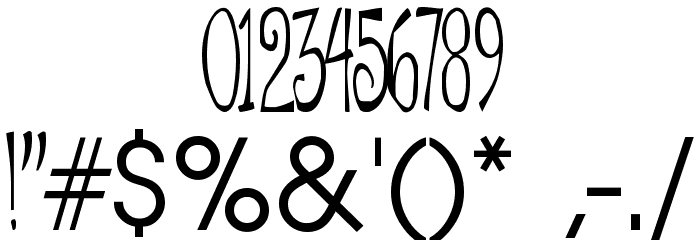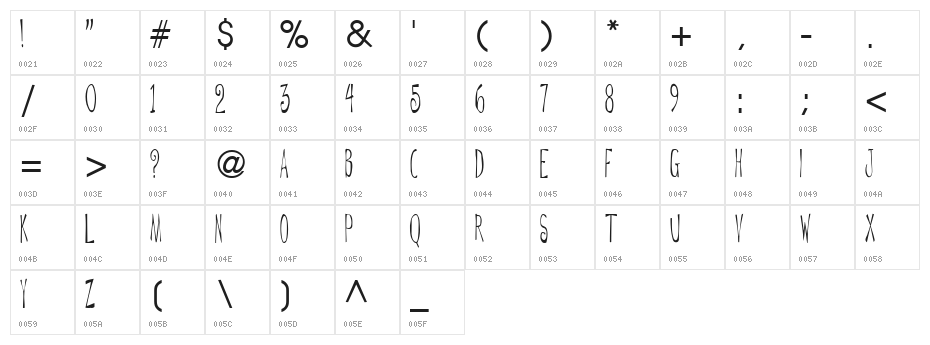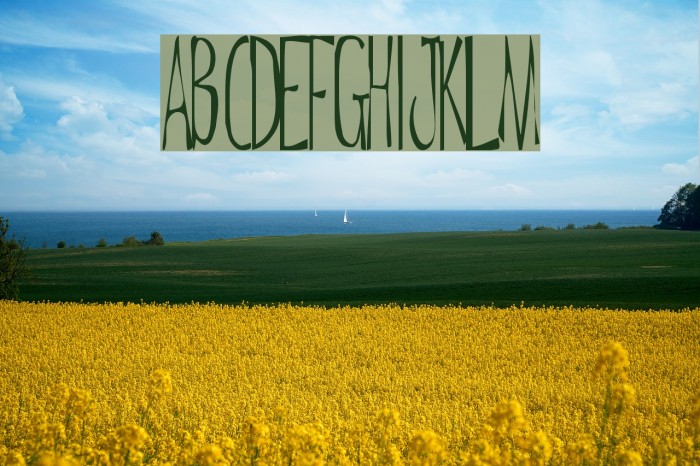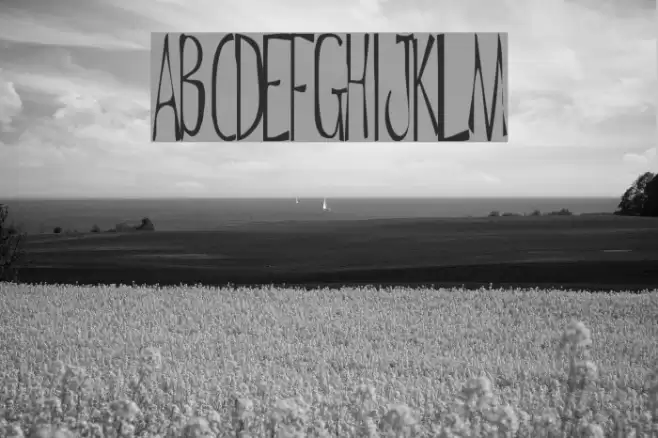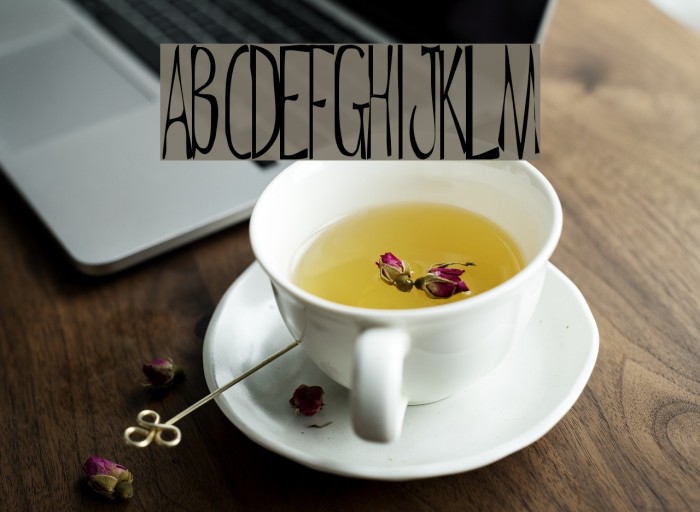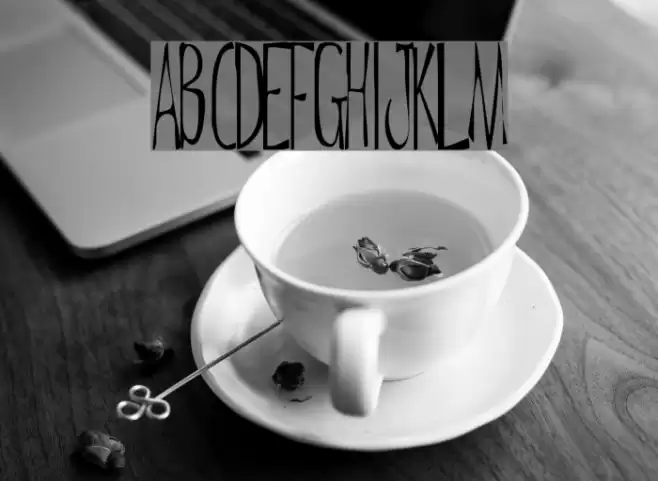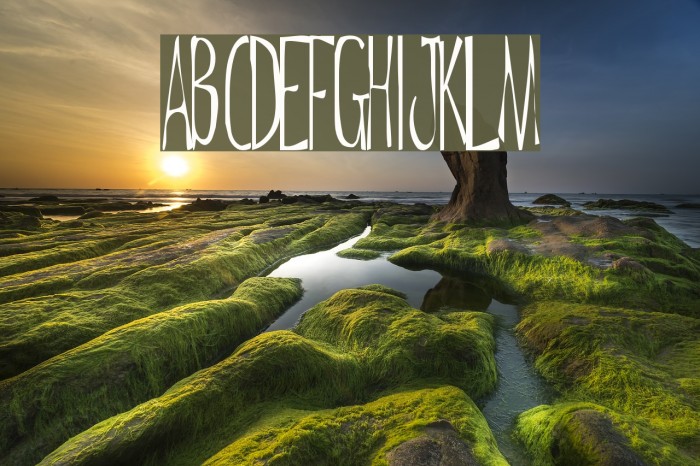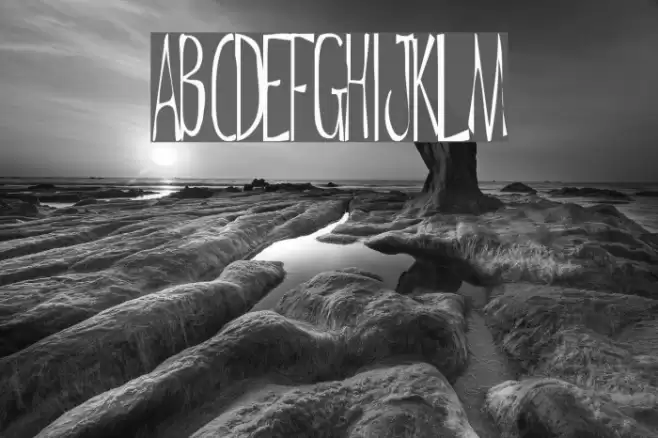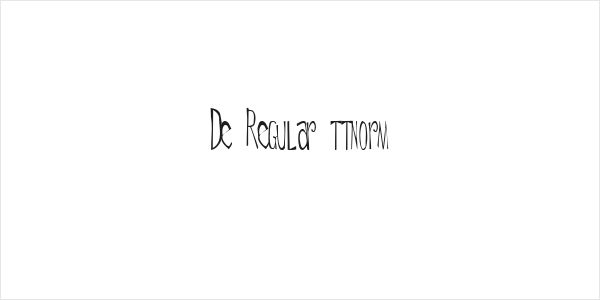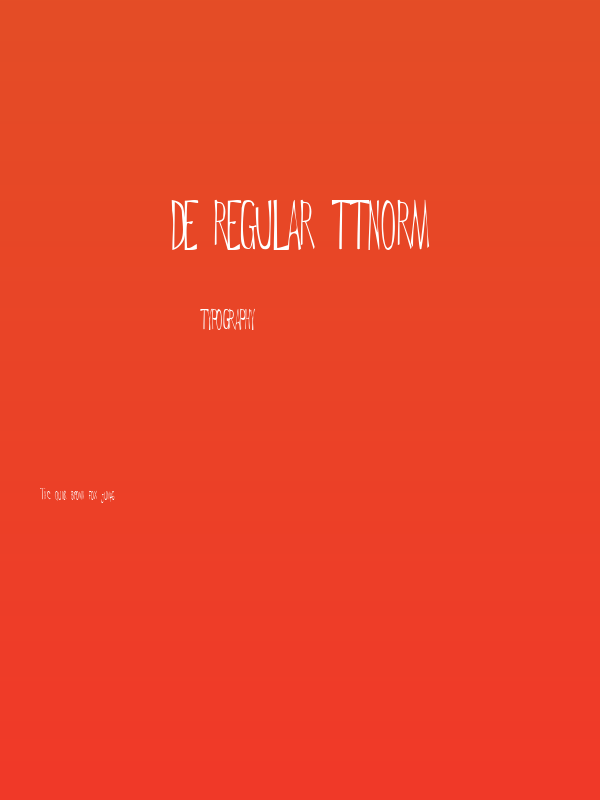
De Regular ttnorm Font
De Regular ttnorm Description
This font features a playful and quirky design with a hand-drawn aesthetic. The characters are elongated and slightly irregular, giving them a whimsical and artistic feel. The uppercase letters are tall and narrow, while the lowercase letters maintain a consistent style with a slightly more compact form. The numbers and special characters follow the same playful theme, adding to the font's overall charm. This font is ideal for creative projects that require a unique and eye-catching typeface.
| Overall Style | Whimsical |
| Proposed Projects | Ideal for children's books, creative posters, artistic branding, and playful invitations. |